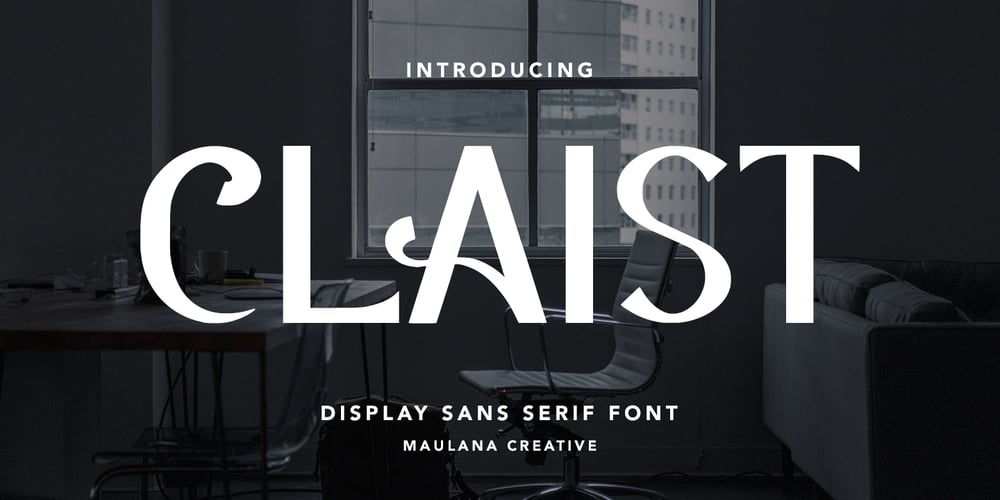
MC Claist Font Family was designed by Gilang Maulana and published by Maulana Creative. MC Claist contains 1 styles and family package options. Introducing Claist Decorative Display Font.Claist Decorative Display Font is a handmade Modern Victorian handlettering, which is combining modern and classic typography with some awesome alternates. Yes we back to early 1800s, bring classic touch on this decade.Thanks for use this font.Maulana Creative.